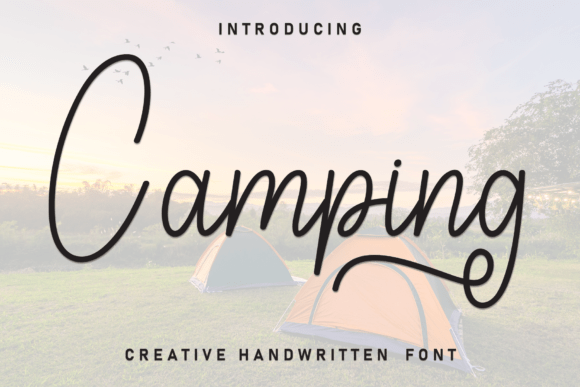
Camping
Finding the right design elements can be challenging, but Camping offers an exceptional collection that elevates your work instantly.
Whether you are creating POD (Print on Demand) products, wedding invitations, or social media graphics, Camping is an ideal fit.